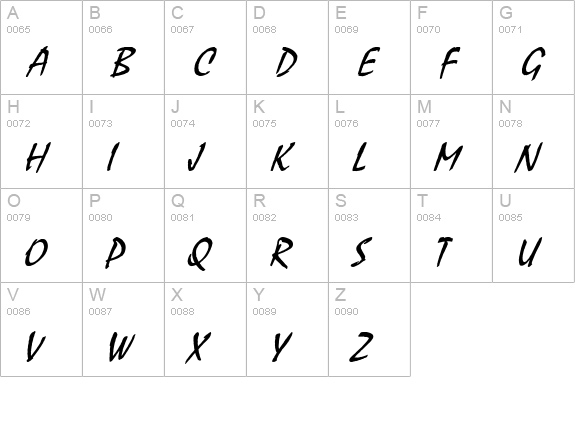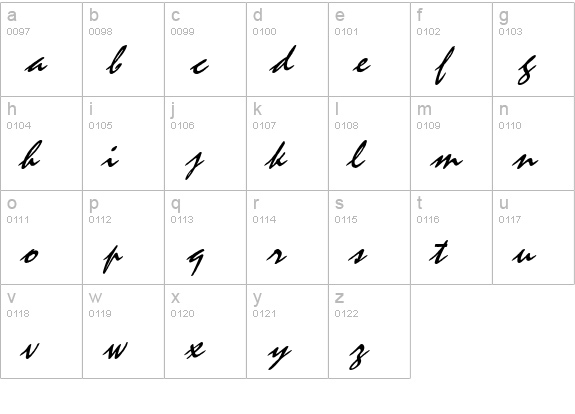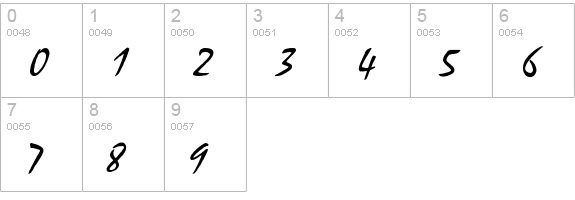
Stucco Italic Font Details
Stucco Italic is a distinctive, italic variant in the Stucco typeface family \xE2\x80\x94 well suited to design and typography projects.
Stucco Italic font is a stunning typeface that exudes elegance and sophistication. Its italicized design adds a touch of flair and style to any project, making it perfect for headings, invitations, and branding materials. The unique texture and smooth curves of Stucco Italic give it a timeless and classy look that is sure to catch the eye. What's even better is that Stucco Italic is available for free download at FontsMarket.com. This means you can easily access this beautiful font and use it in your designs without any cost. Whether you're a designer looking to add a touch of sophistication to your work or a business owner in need of a stylish font for your branding, Stucco Italic is the perfect choice. Download it now and elevate your design projects with this exquisite typeface.